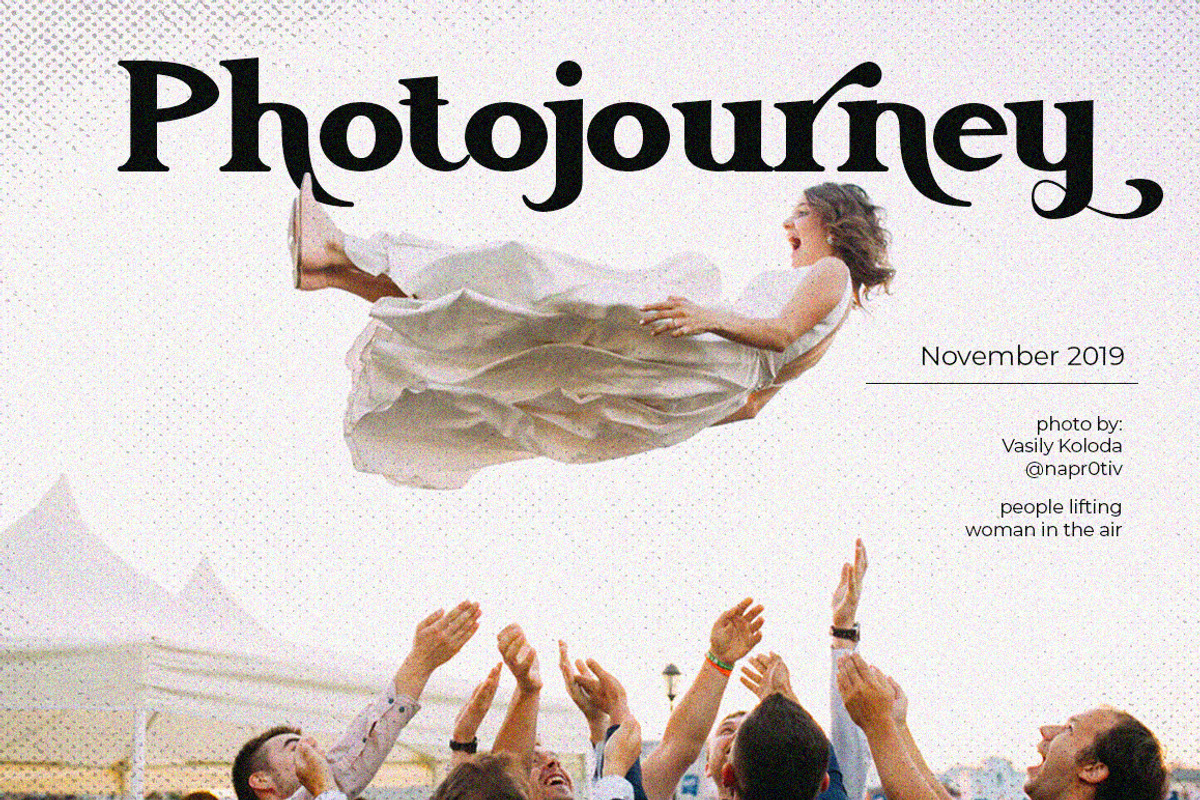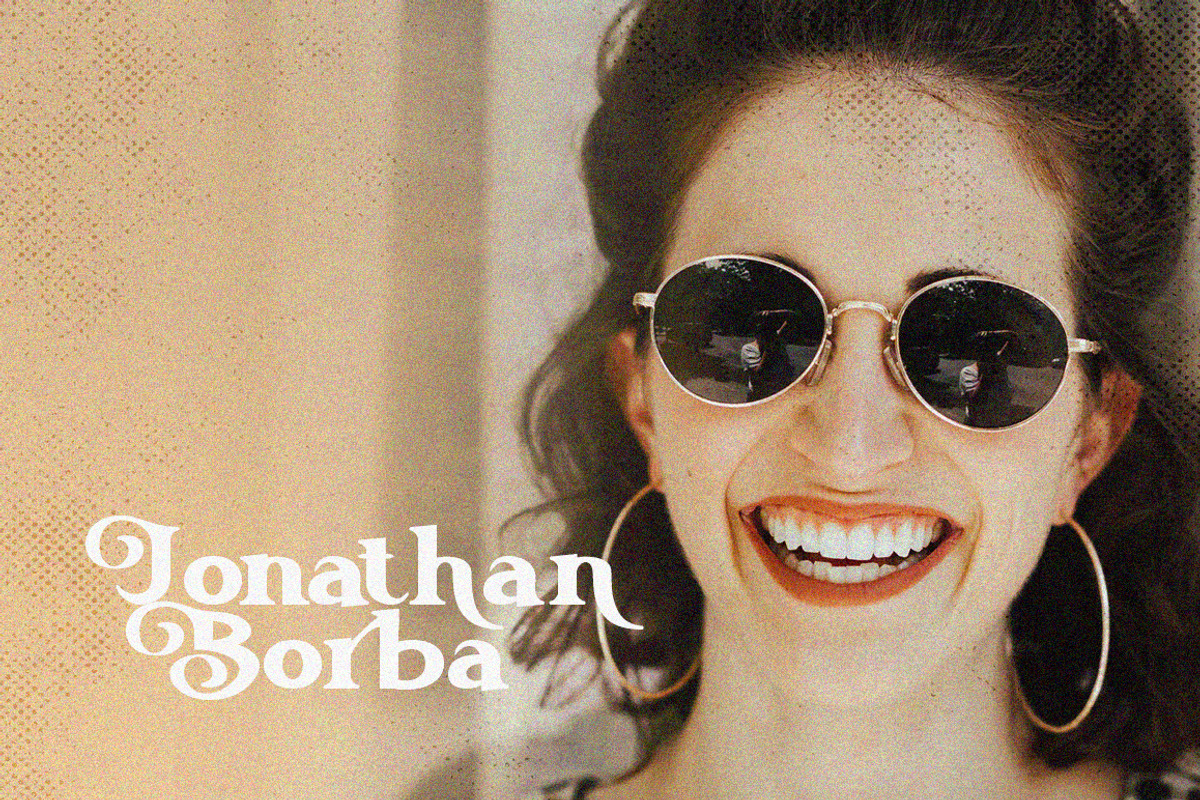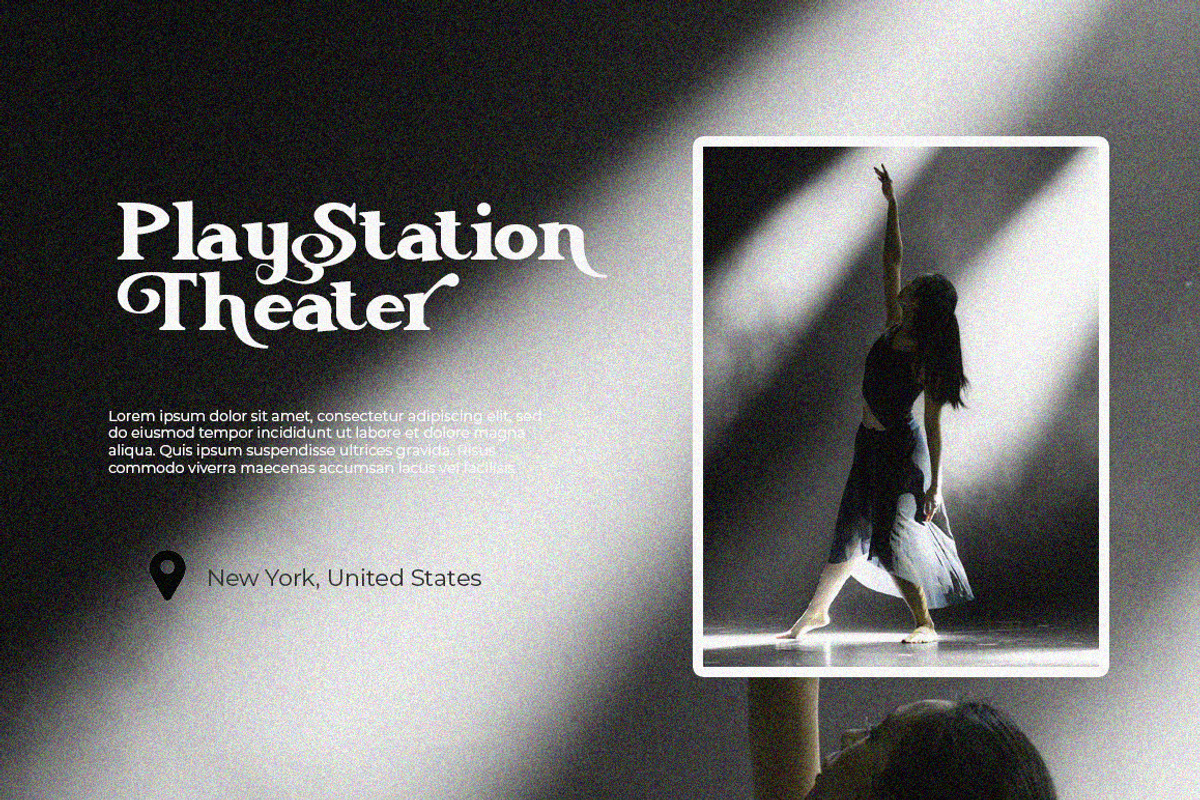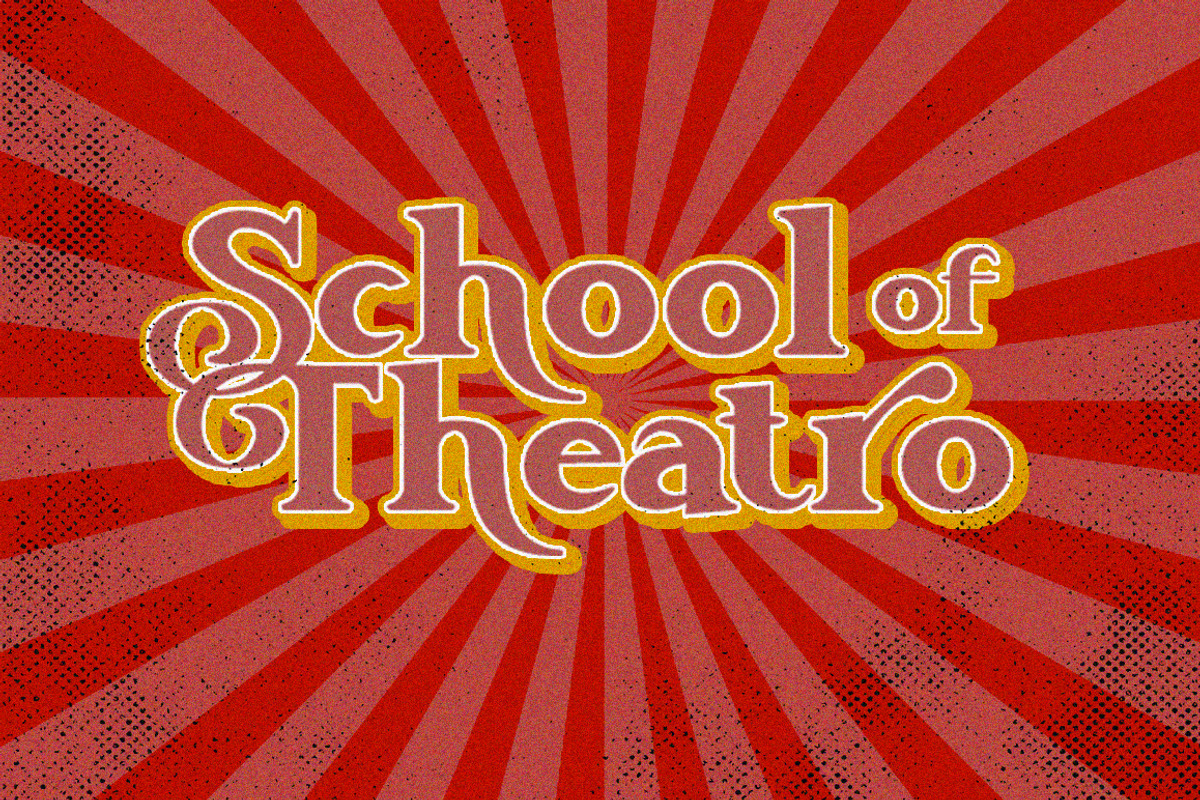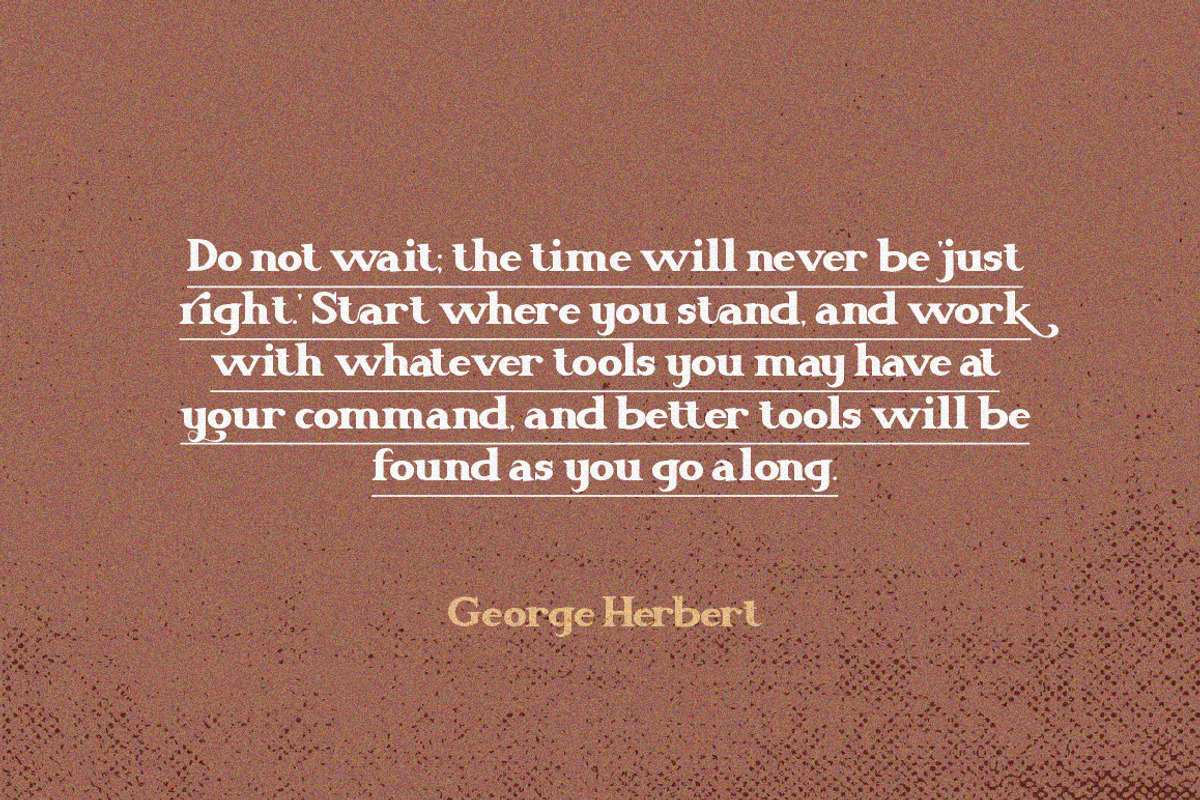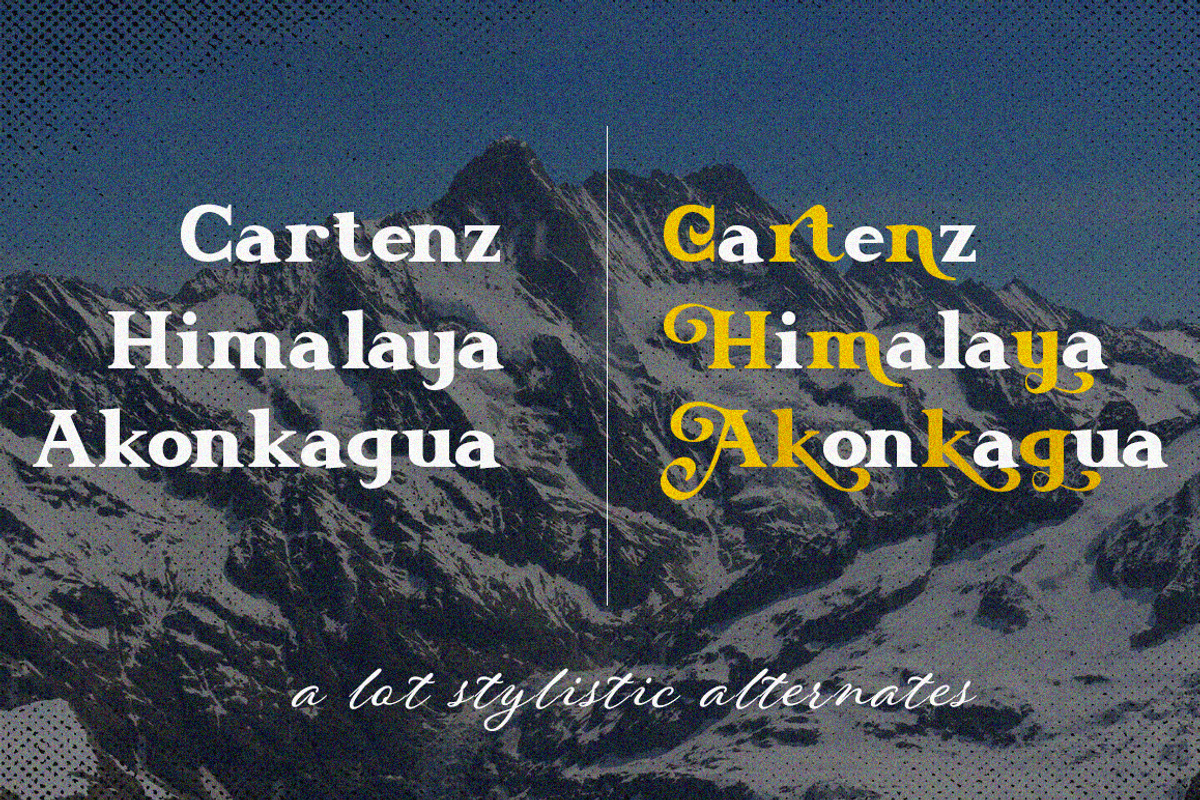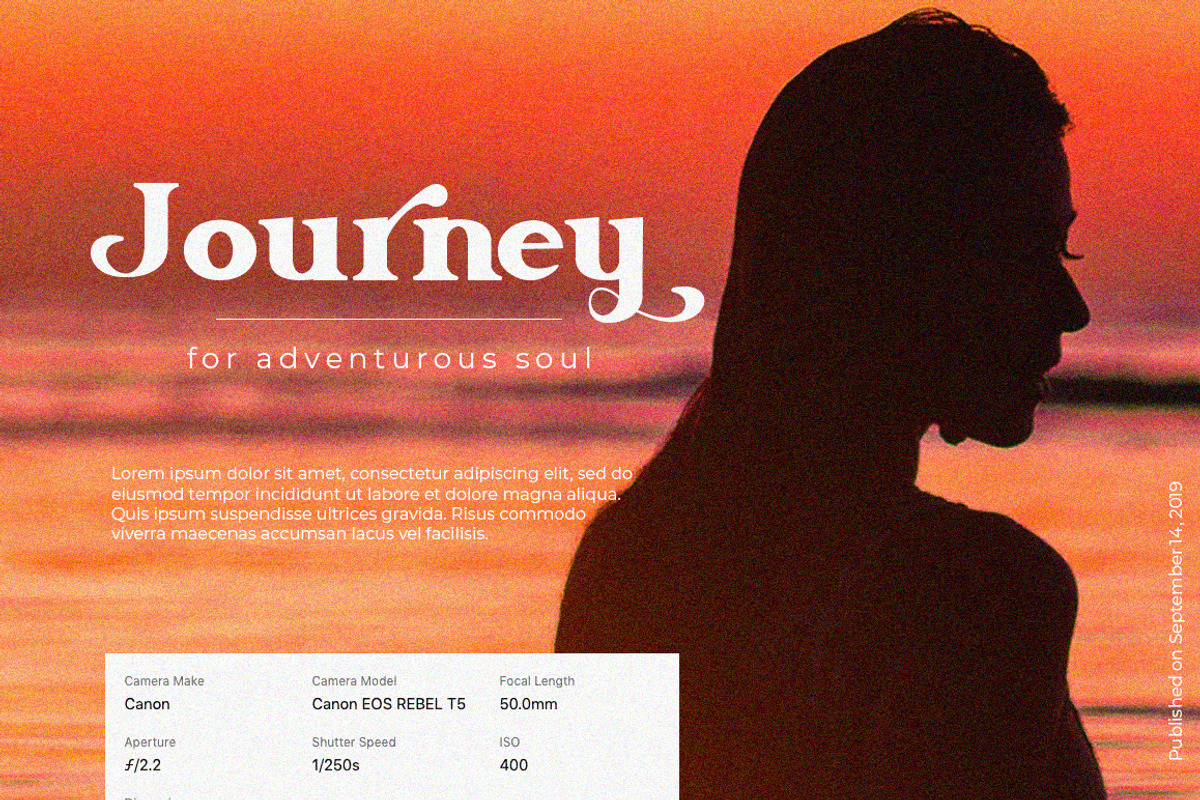
Krisander || Modern Serif Font
Introducing Krisander Serif Font is Modern serif font with beautiful alternate characters and also ligature which makes it easy for you to create a logo for your personal branding and your business beautifully.
Krisander Serif Font is perfect for many different projects such as logos & branding, invitation, stationery, wedding designs, social media posts, advertisements, printed quotes, product packaging, product designs, label, photography, watermark, special events or anything.
Krisander includes Capital and Lowercase letters, Alternates, and Ligatures, Numbers + punctuation
Foreign language support
Krisander || Modern Serif Font by Analogous fits naturally into Branding, posters, packaging, typography.